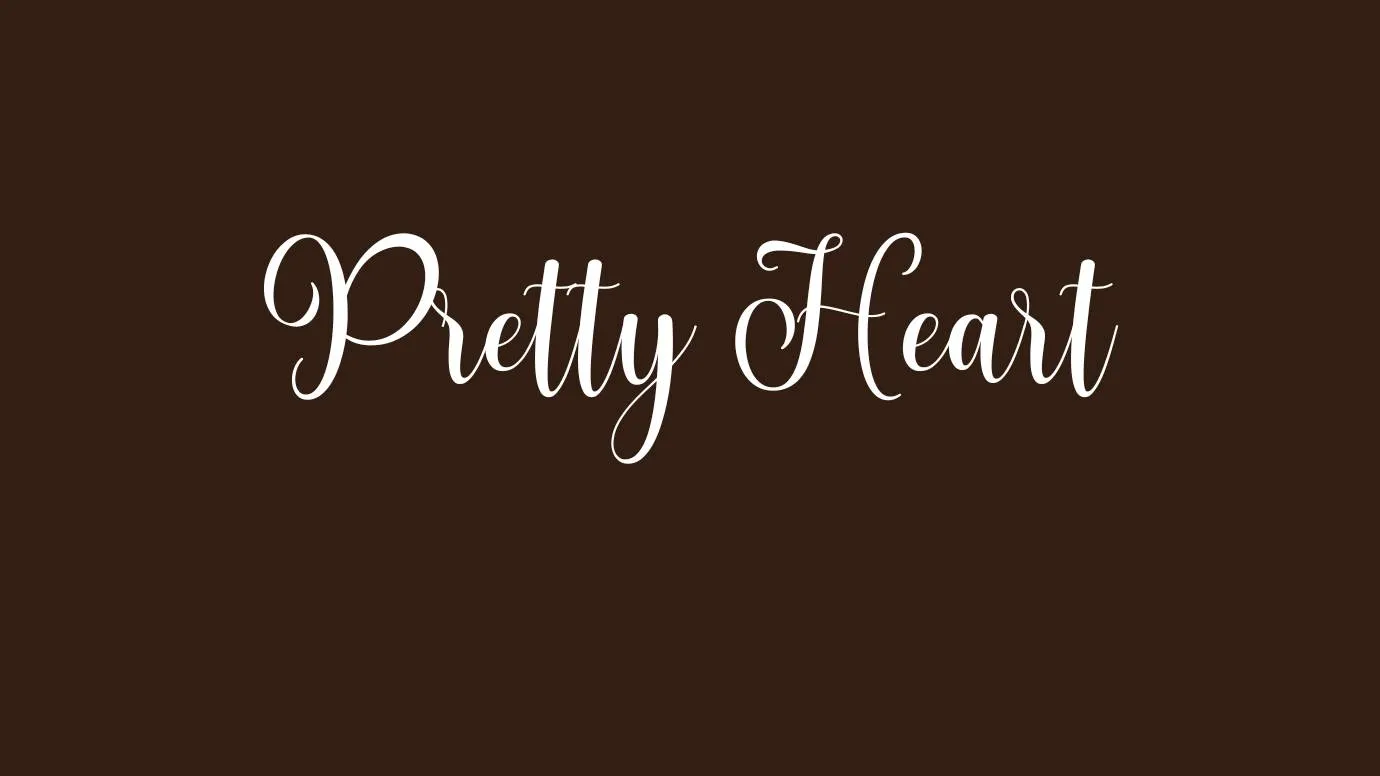
Pretty Heart Font Family is a very beautiful calligraphy font and you can make so many interesting projects by using this font. It was designed by Nindya Frasela and manufactured by EF Studios Team.
| Name | Pretty Heart Font |
| Designer | Nindya Frasela |
| Type | Calligraphy |